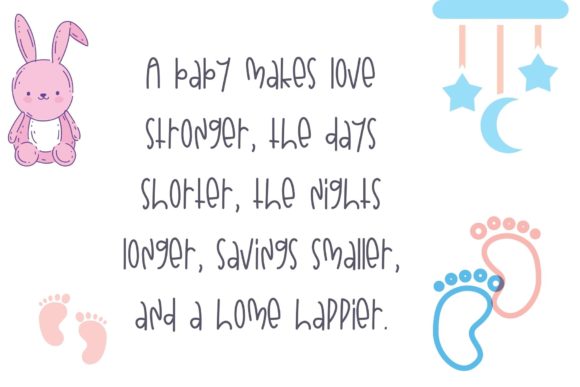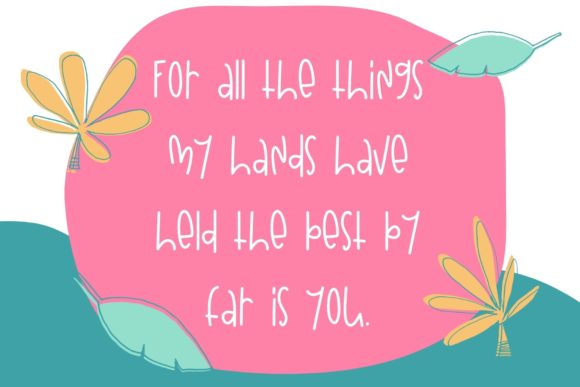
Emma Baby Shower Font
db-ku.com - Script & Handwritten -- Emma Baby Shower is a cute and quirky handwritten font. Fall in love with its incredibly versatile style and use it to create gorgeous wedding invitations, beautiful stationary art, eye-catching social media posts, and much more!